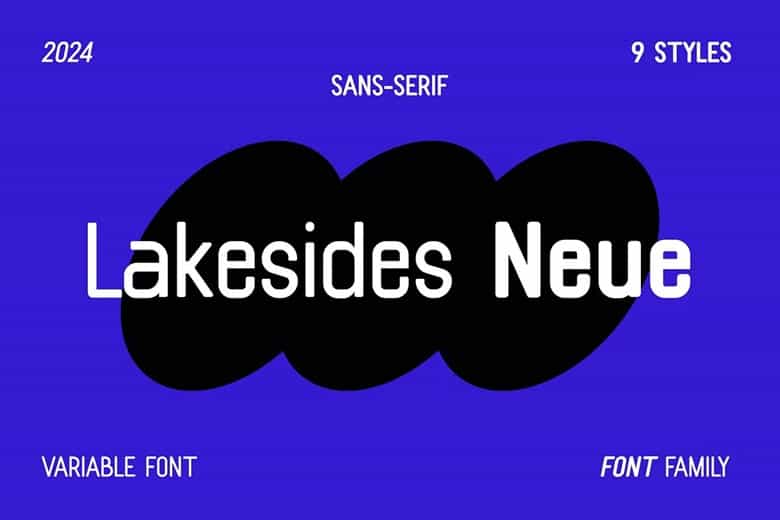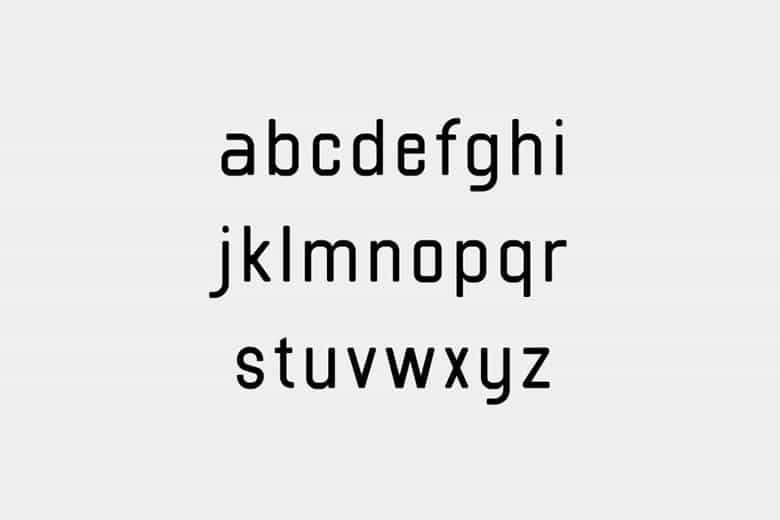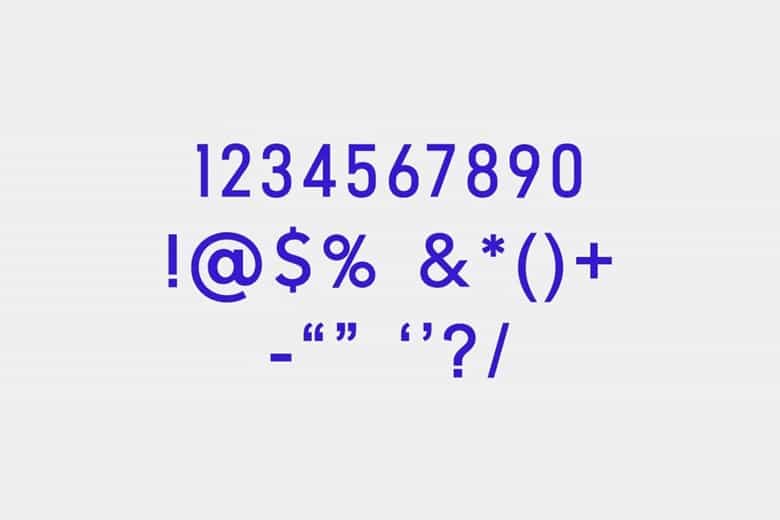
Lakesides Neue is a variable sans serif family. It’s looks quite sophisticated, elegant, and fashionable. This font is perfect for a broad range of purposes that includes stationery, logo, wedding, typography, quotes, magazine or book covers, website header, branding, and so on. Also, Fashion branding or editorial design has both the male and female attributes to it.